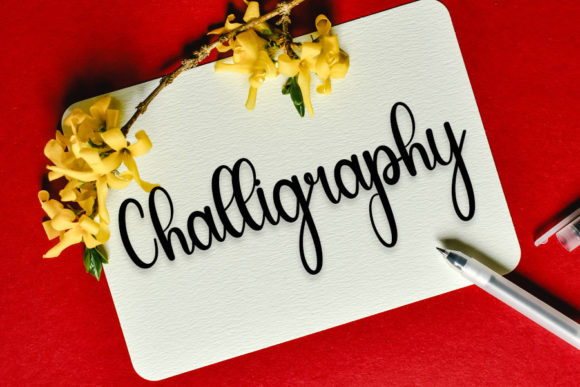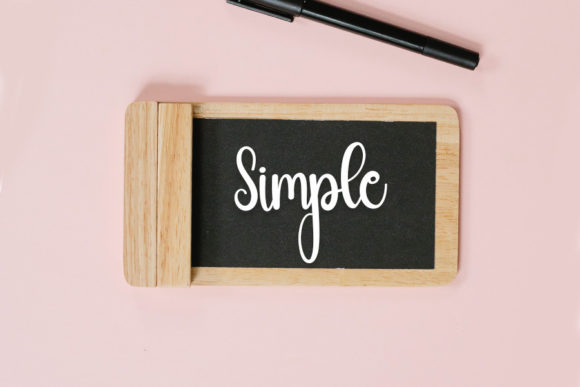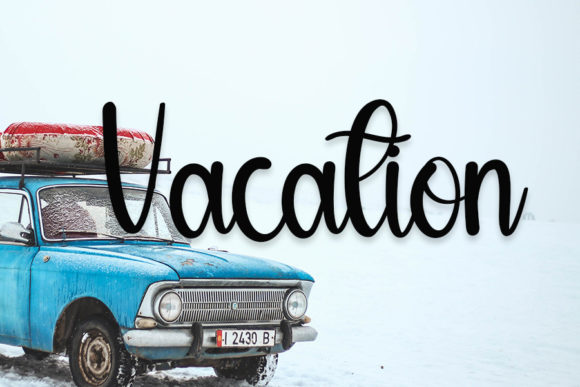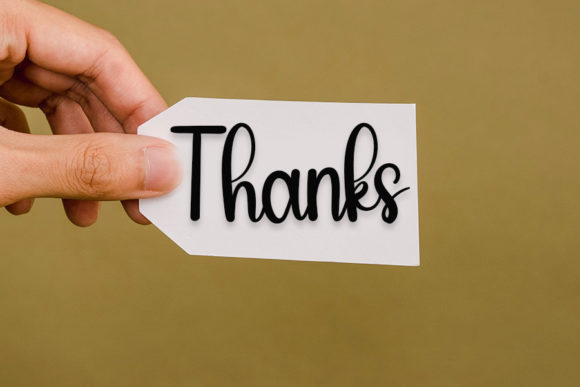
Introducing Actual Font: The Friendly Handwritten Font You Need
Are you tired of using the same old fonts in your designs? Look no further than Actual Font, a beautiful and friendly handwritten font that’s sure to become your new favorite. With its classy calligraphic influences and contemporary feel, Actual Font is the perfect addition to any design project.
What Makes Actual Font So Special?
Actual Font is carefully designed to provide a unique and refreshing look to your designs. Its friendly and approachable style makes it perfect for a wide range of projects, from wedding invitations and branding materials to social media graphics and more. The font’s calligraphic influences give it a touch of elegance and sophistication, while its contemporary feel keeps it fresh and modern.
Actual Font is a versatile font that’s perfect for designers and crafters alike. Whether you’re creating digital products, printing merchandise, or crafting handmade goods, this font is sure to impress. Its friendly and approachable style makes it perfect for projects that require a personal touch, such as:
- Handmade crafts, such as sewing and paper crafting
- Digital products, such as printable art and planners
Why Choose Actual Font?
With so many fonts on the market, why choose Actual Font? Here are just a few reasons:
- Unique and refreshing style: Actual Font’s friendly and approachable style sets it apart from other fonts on the market.
- High-quality design: The font is carefully designed to provide a smooth and consistent look, even at small sizes.
- Versatility: Actual Font is perfect for a wide range of projects, from digital products to handmade crafts.
Tips for Using Actual Font
Here are a few tips for getting the most out of Actual Font:
- Experiment with different sizes: Actual Font looks great at a wide range of sizes, from small captions to large headings.
- Pair with other fonts: Actual Font pairs well with a wide range of fonts, from serif and sans serif fonts to script and display fonts.
Actual Font is a friendly and approachable handwritten font that’s sure to become a true favorite. With its classy calligraphic influences, contemporary feel, and PUA encoding, it’s the perfect addition to any design project. Whether you’re a designer, crafter, or DIY enthusiast, Actual Font is a must-have font that’s sure to inspire your creativity.